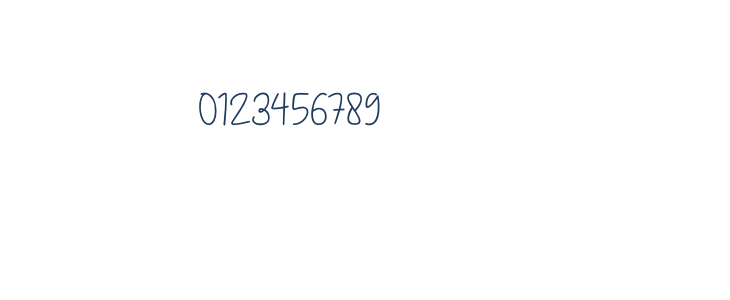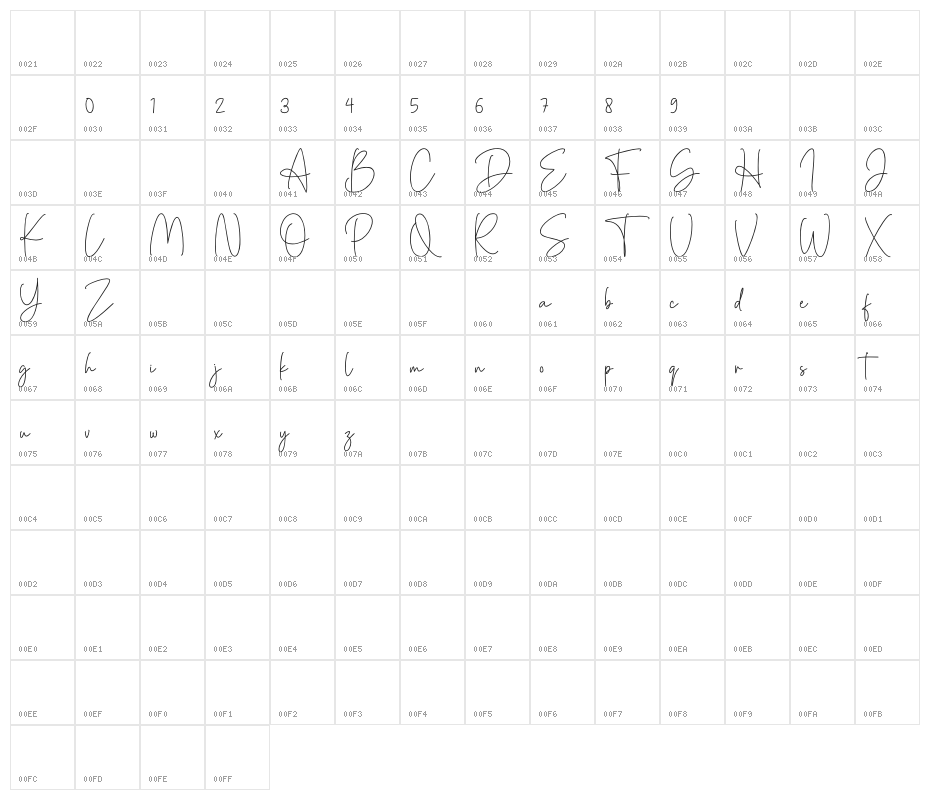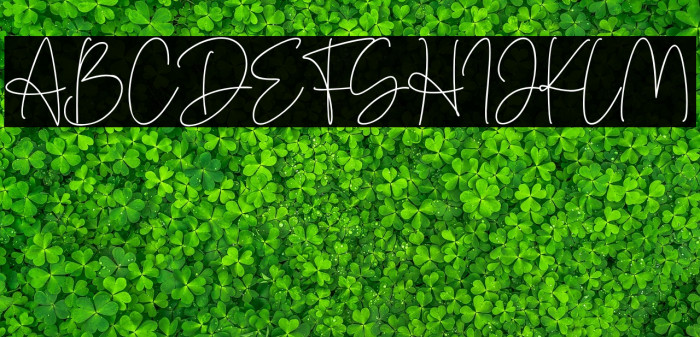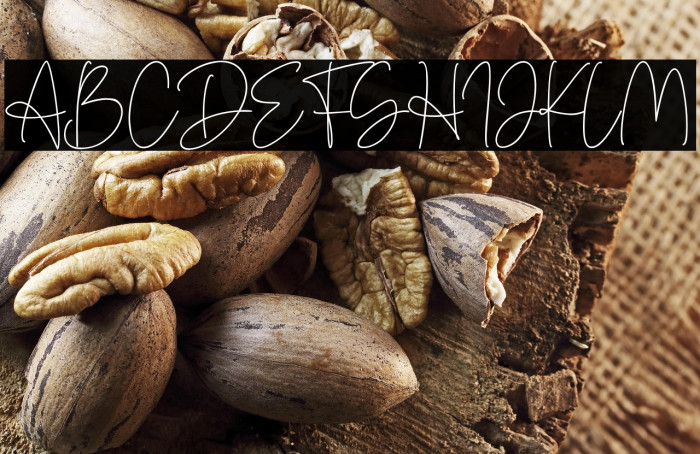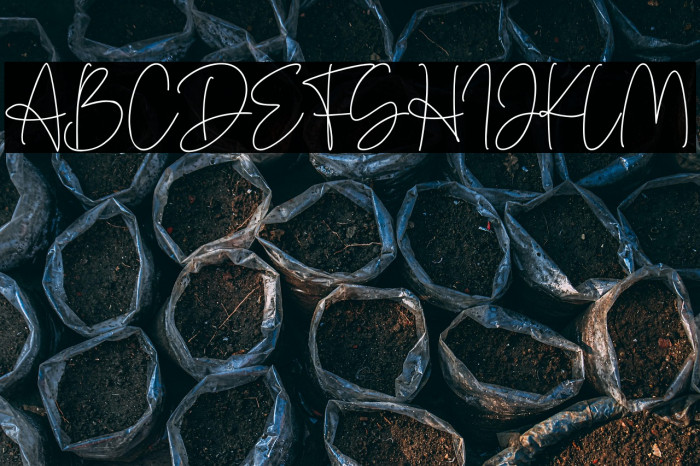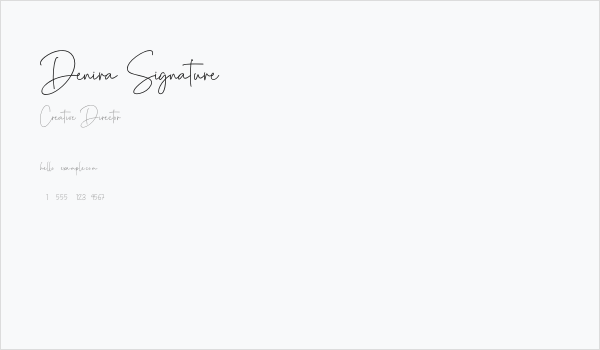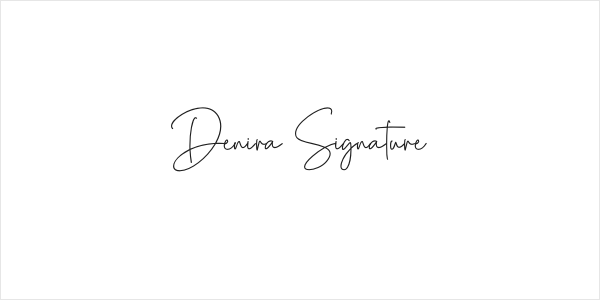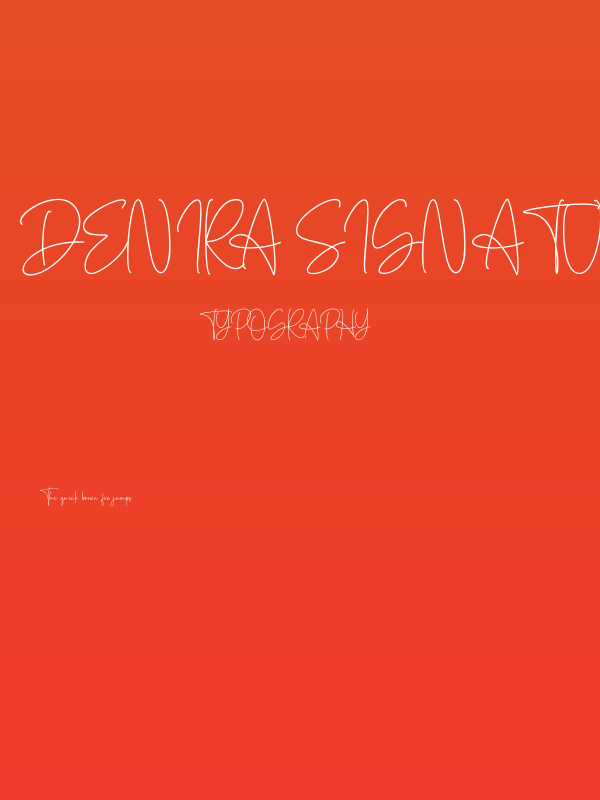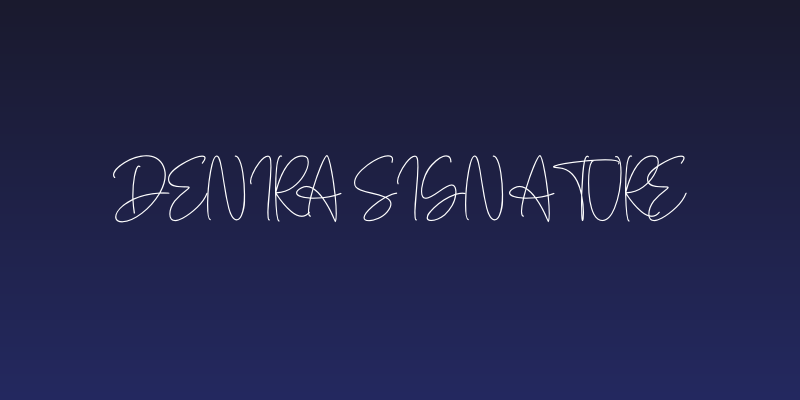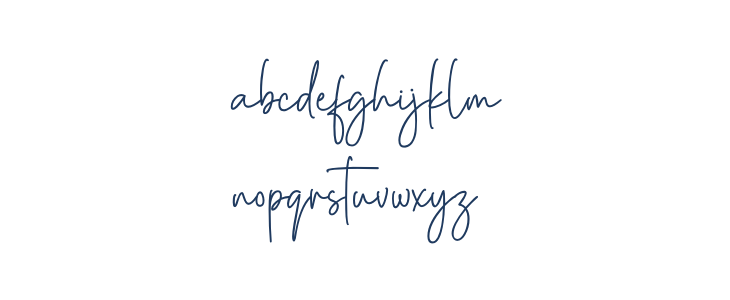
Denira Signature Font
Denira Signature Description
This font exudes a modern and elegant handwritten style, characterized by its fluid and graceful strokes. The uppercase letters are tall and slender, with a slight slant that adds a dynamic feel. The lowercase letters maintain a consistent flow, enhancing the script-like appearance. The numerals are clear and legible, complementing the overall aesthetic. Special characters are seamlessly integrated, maintaining the font's cohesive look. The thin lines and delicate curves give it a sophisticated and stylish appeal, making it suitable for various creative applications.
| Use Case | Logos, Invitations, Social Media Graphics |
| Proposed Projects | Ideal for wedding invitations, branding, social media graphics, and personal signatures. |